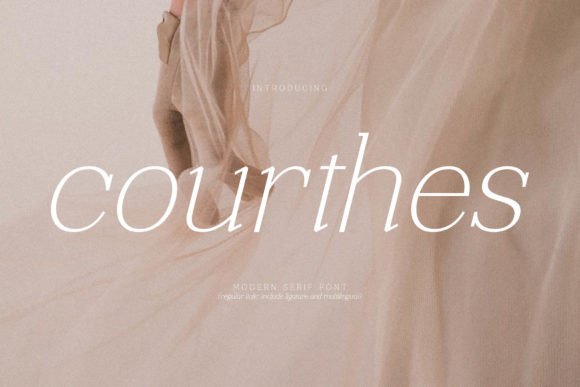
Experience the allure of Courthes Typeface, a serif modern and classic typeface that captivates with its unique style and contemporary flair. This remarkable creation by Storytype Studio is a testament to the enduring beauty of timeless design, reimagined for the digital age.
Unleash your creativity and elevate your designs with Courthes Typeface, the perfect choice for elegant and luxurious logos that demand attention. Whether crafting book or movie titles that intrigue and inspire, or designing fashion brands that exude sophistication, Courthes Typeface is your trusted companion.
Immerse yourself in a world of endless possibilities, where magazine layouts come alive with newfound elegance, and clothing lines radiate an aura of exclusivity. Transform quotes into works of art, and let your lettering projects shine with a touch of timeless charm.
With Courthes Typeface, the boundaries of creativity dissolve, allowing you to effortlessly manifest your artistic vision. Its versatility knows no bounds, seamlessly adapting to a myriad of design endeavors. Its clean lines and refined curves evoke a sense of sophistication, while its modern appeal ensures your designs stay relevant and captivating.
Embrace the allure of Courthes Typeface and embark on a creative journey where elegance and innovation harmoniously coexist. Elevate your designs to new heights of artistry, leaving a lasting impression on all who encounter your work.